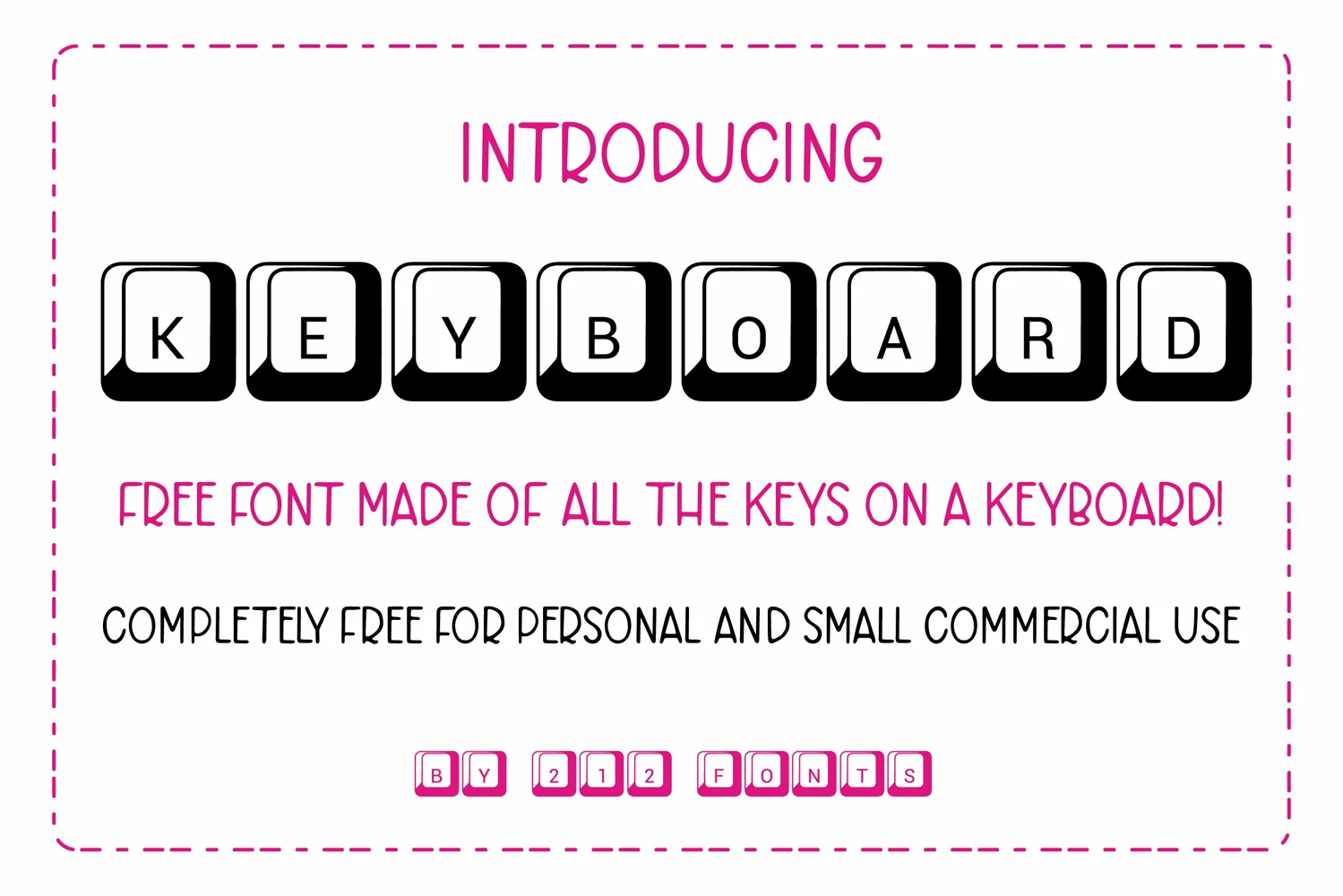
212 Keyboard - A Computer Keys Font
212 Keyboard is a completely free font for personal and small commercial use. I found it useful to have a font with these symbols and thought you might too! Please do not resell.